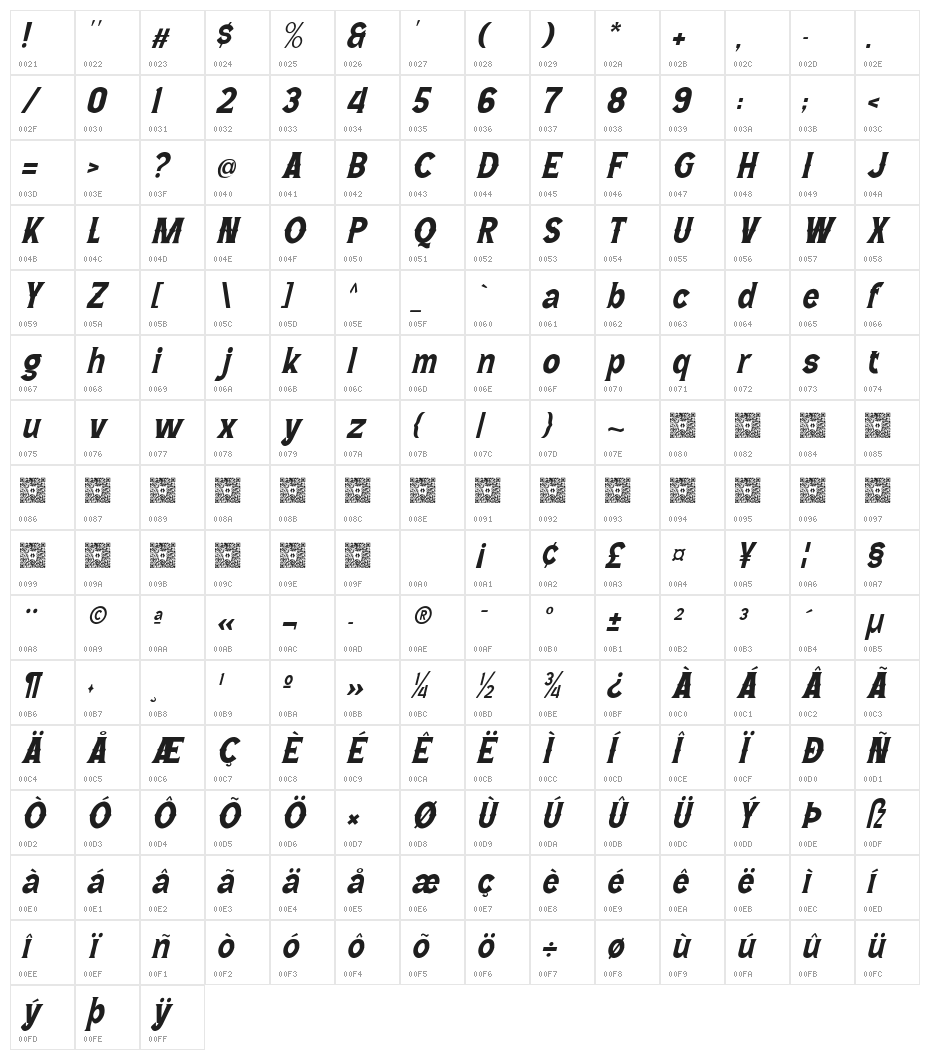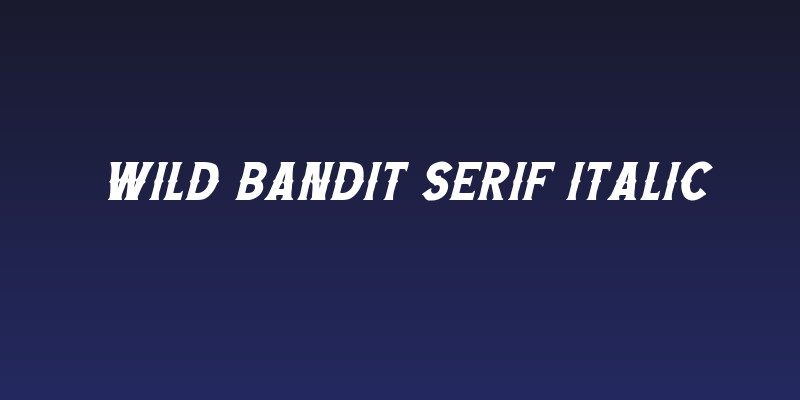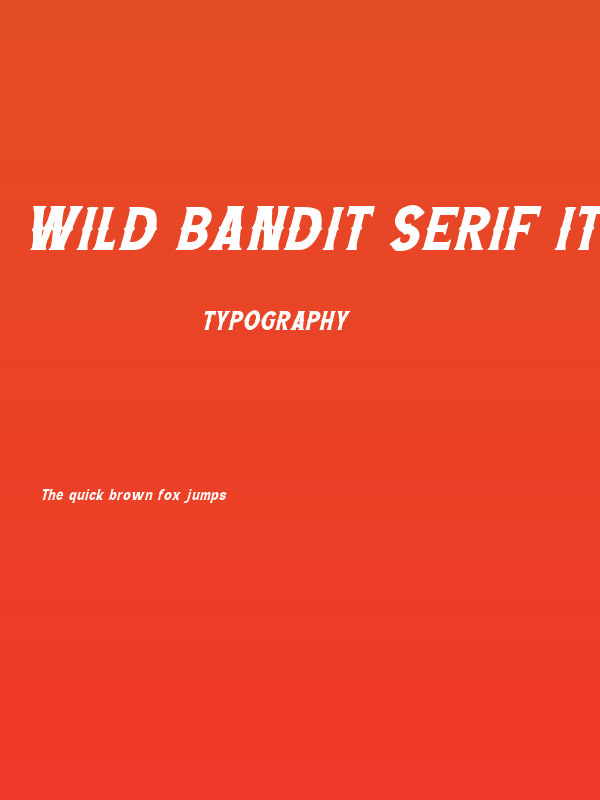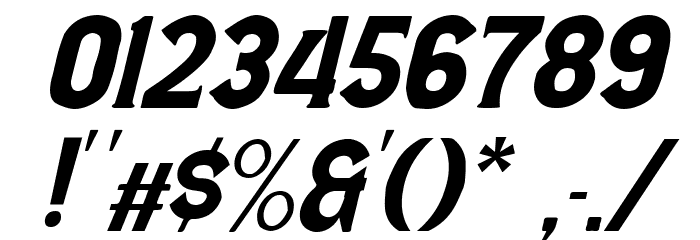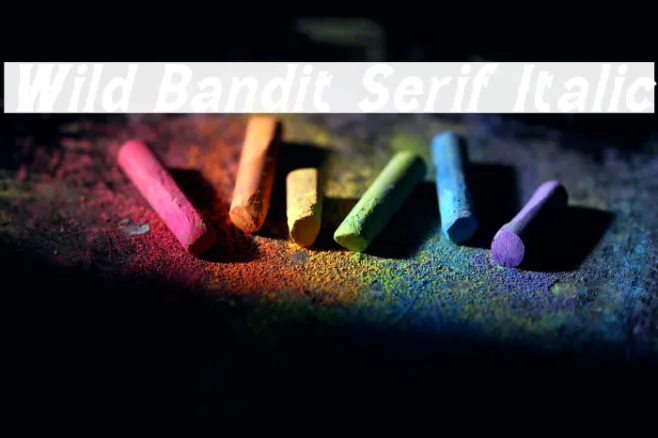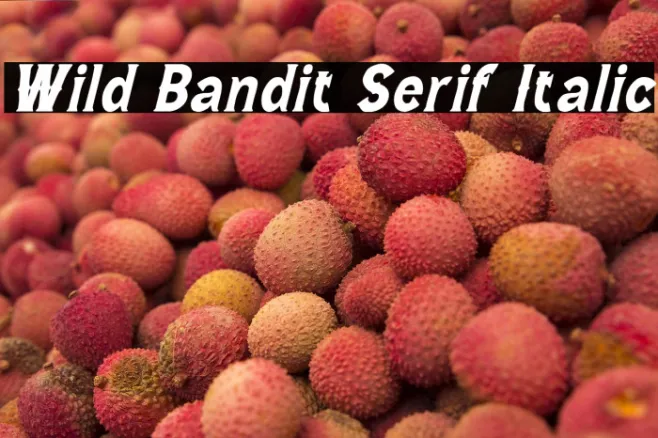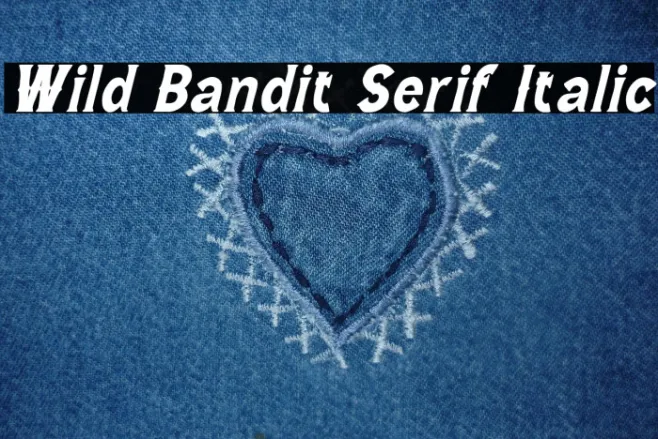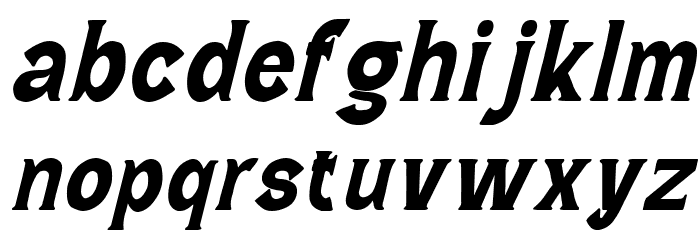
Wild Bandit Serif Italic Font
Wild Bandit Serif Italic Description
This font exhibits a bold and dynamic serif style with a distinct italic slant, giving it a sense of movement and energy. The characters are robust and slightly condensed, featuring sharp serifs that add a touch of elegance and sophistication. The uppercase letters are strong and commanding, while the lowercase letters maintain a consistent flow, enhancing readability. The numerals are clear and bold, making them suitable for impactful displays. Special characters are well-defined, ensuring versatility in various design contexts. The overall appearance is both classic and modern, making it suitable for a wide range of applications.
| Use Case | Headlines, Logos, Branding |
| Proposed Projects | Ideal for branding, headlines, posters, and editorial design where a strong, elegant presence is desired. |